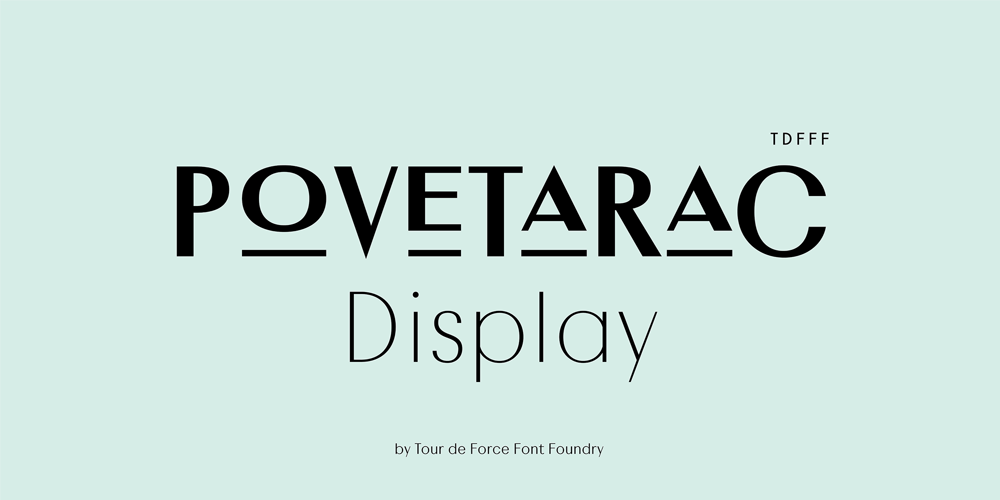
Povetarac Display Font Family was designed by Dusan Jelesijevic and published by Tour De Force. Povetarac Display contains 7 styles and family package options. Povetarac Display font family is part of Povetarac Superfamily together with Povetarac Sans and Povetarac Didone.Available in 6 weights and one variable font file, Povetarac Display relays on lively uppercase proportions that took inspiration from vintage typefaces. It is well balanced, elegant and fully recognizable high contrasted sans serif family. One of its characteristics are straight and wide terminals. With sharp overhang, Povetarac Display works pretty well in all situations – from editorial use to branding, websites or just titles.Comes with 3 Stylistic Sets, SmallCaps and Fractions and extended Latin character map.